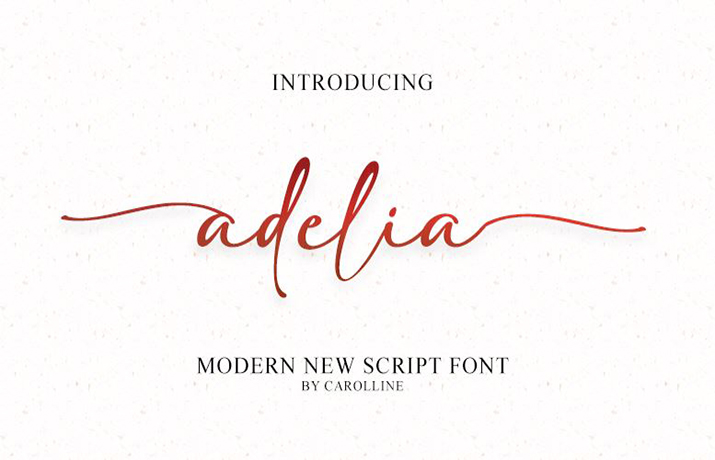
Adelia Font is an elegant script-style calligraphy typeface that also comes with a handwritten lettering style. Perfect for greeting cards and wedding invitations.
It was created and shared by Carolina Herrera that is a Venezuelan-American fashion designer known for her personal style.
The designer has created it with slim and bold strokes and also the designer has put swashes throughout the typeface.
It has come in one style including Regular. In which regular style has proper handwritten texture along with swashes.
Due to its cursive structure, you can easily use this stunning font for printing on exciting headlines, brand logos, invitations, birthday cards, movie posters, game titles, shopping bags, and t-shirts.